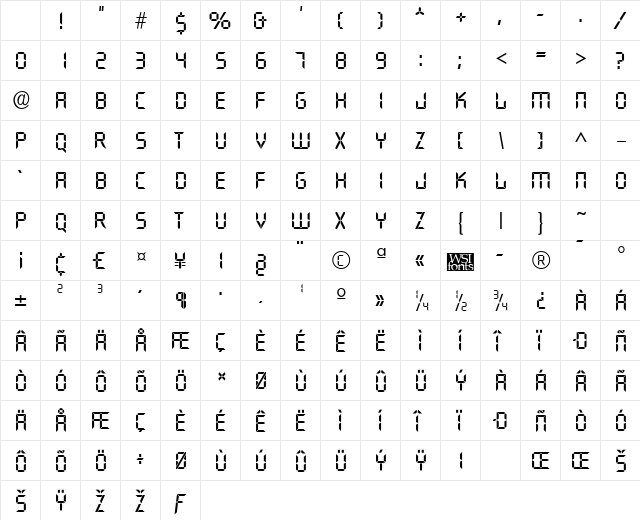
Digiface Regular Free Font
Digiface Regular
Digiface Family
Design Context for Digiface
Digiface is a composed and adaptable typeface that performs quietly and consistently across a wide range of design contexts.